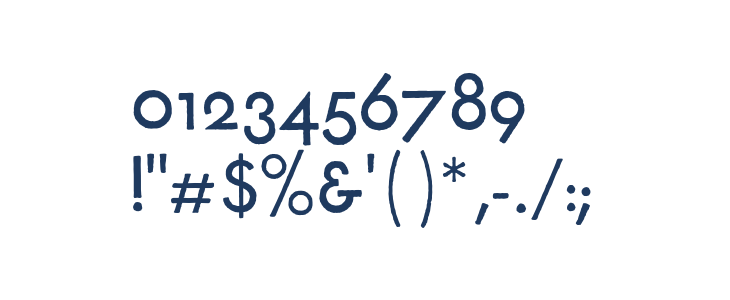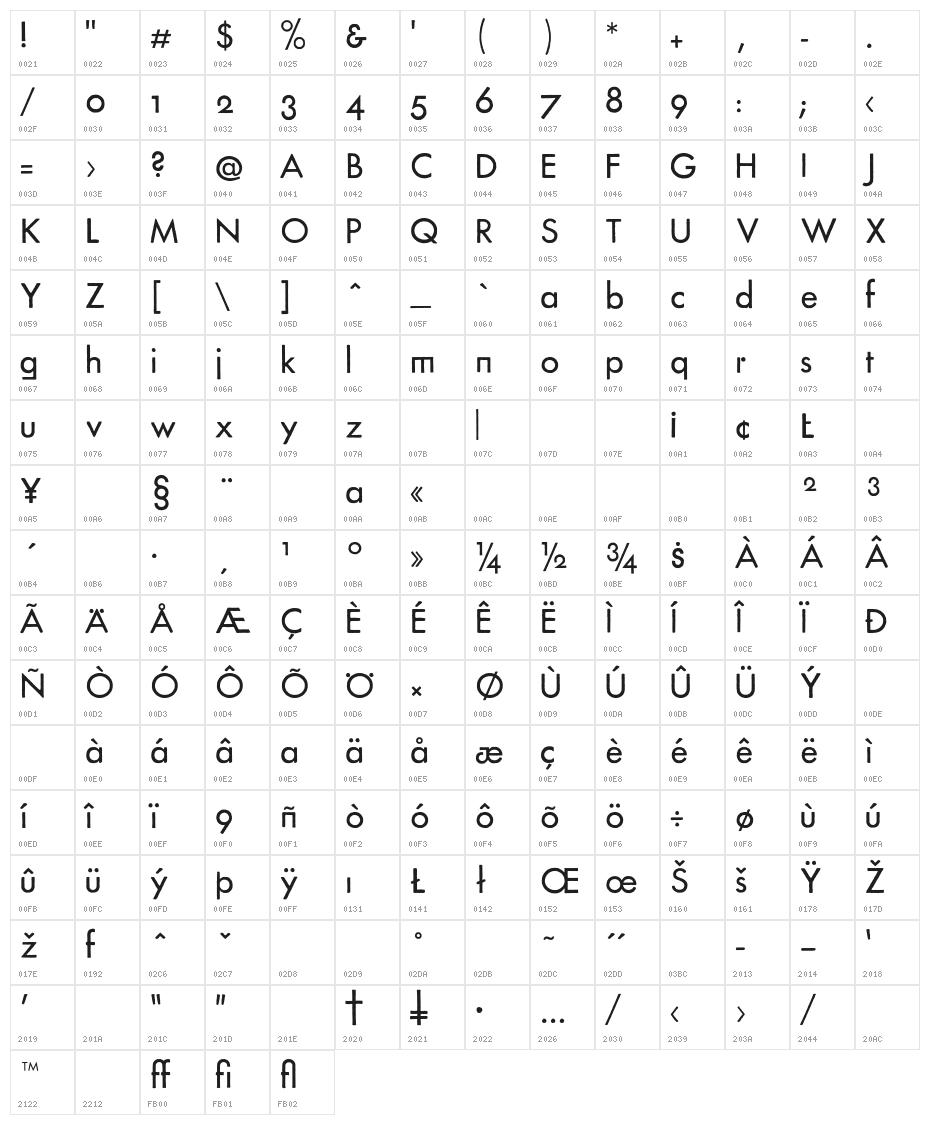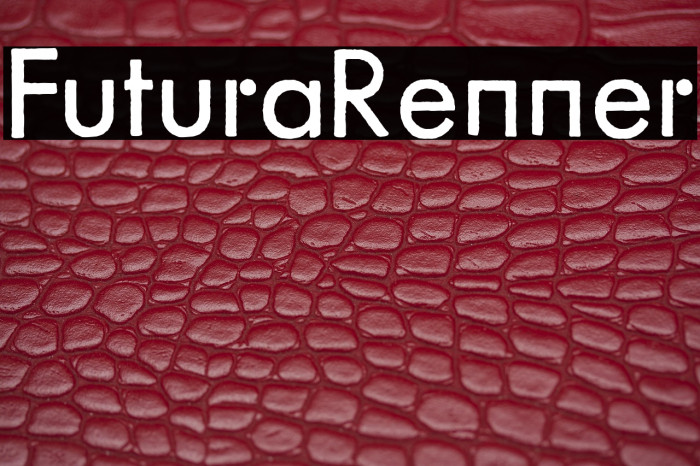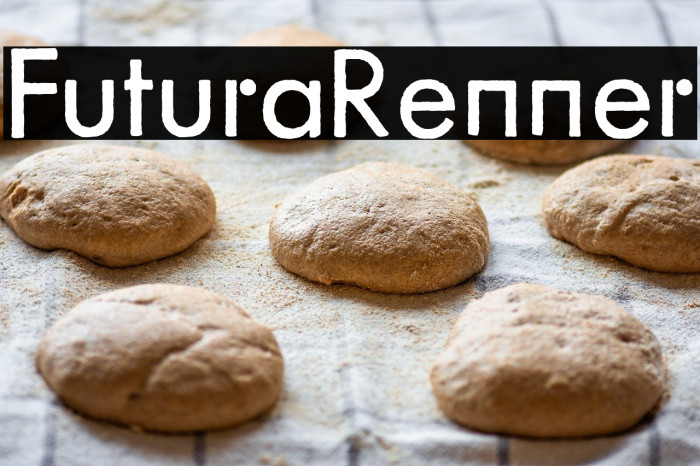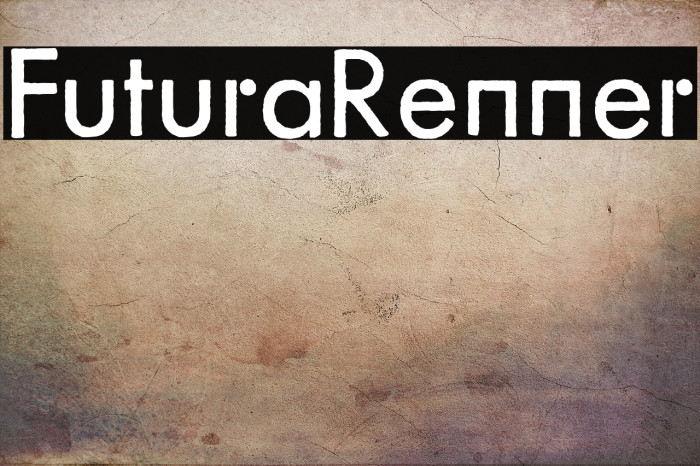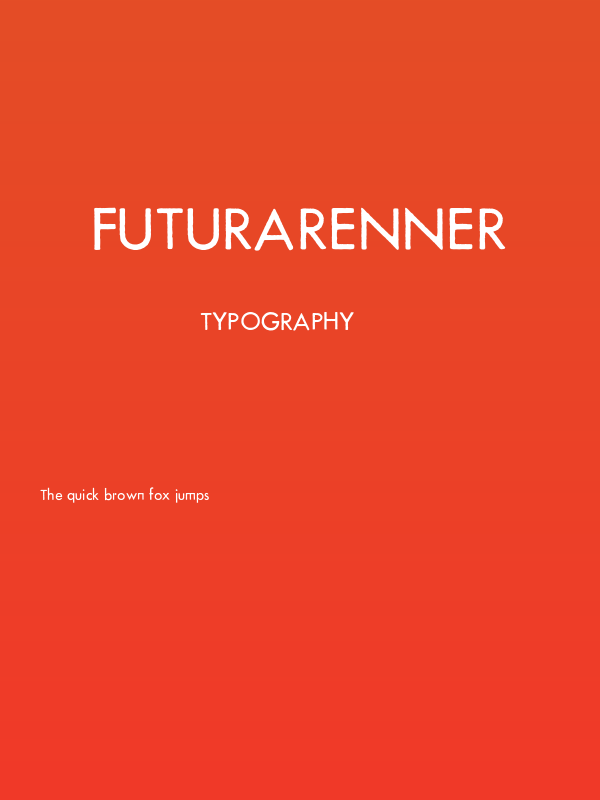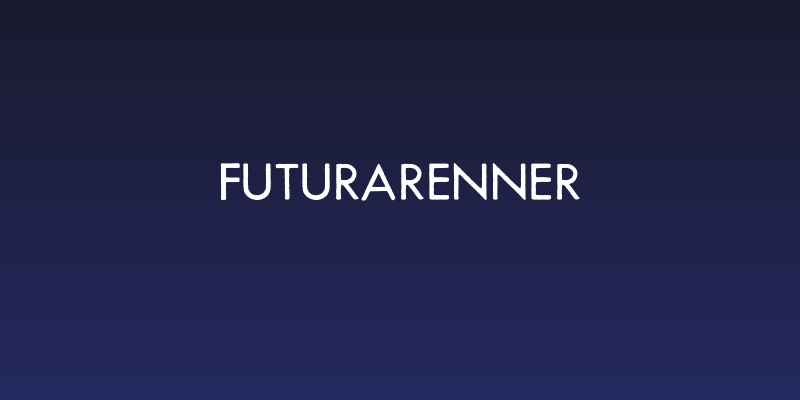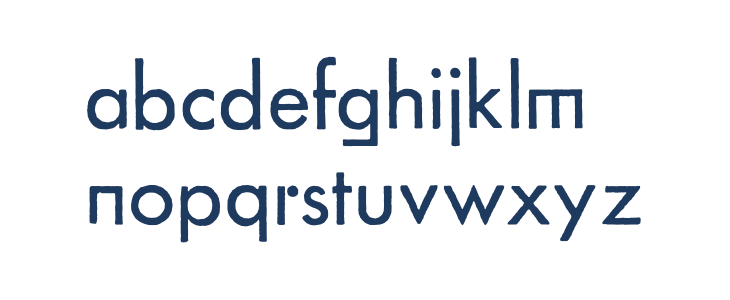
FuturaRenner Font
FuturaRenner Description
This font features a geometric sans-serif style, characterized by clean lines and a modern, minimalist aesthetic. The uppercase letters are bold and uniform, with a consistent stroke width that gives a sense of stability and balance. The lowercase letters maintain the geometric theme, with rounded shapes and a slightly condensed appearance. Numbers are clear and legible, following the same geometric principles. Special characters are well-integrated, maintaining the overall style. This font is versatile, suitable for a variety of design applications where a clean and modern look is desired.